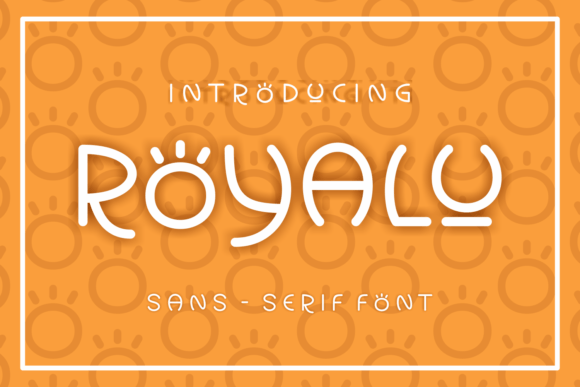
Introducing Royalu Font, a beacon of charm and elegance in the world of typography. This entrancing display font, crafted by the skilled hands of lelevien, is no ordinary typeface; it's a symphony of visual delight. Let your designs dance to the rhythm of Royalu's captivating characters, each stroke a testament to creativity and imagination.
With its bold and playful demeanor, Royalu Font is a breath of fresh air in the realm of conventional fonts. Its unyielding personality shines through in every letterform, beckoning you to explore new horizons of creativity. Dive into the depths of its meticulously crafted glyphs, and discover a treasure trove of stylistic alternatives and ligatures, empowering you to unleash your inner artist.
But Royalu's allure extends far beyond its aesthetic appeal. This versatile font is a master of adaptability, effortlessly conforming to a myriad of design projects. Whether you seek to craft captivating logos, enthralling posters, or visually stunning social media graphics, Royalu Font rises to the occasion with grace and finesse. Its unwavering legibility ensures that your message remains crystal clear, even in the most demanding environments.
If you're a seeker of distinction, a visionary yearning to leave an indelible mark on the world of design, then Royalu Font is your destined companion. Its distinctive charm will transform your creative endeavors into masterpieces, captivating the hearts and minds of your audience. Join the ranks of those who dare to embrace the extraordinary, and let Royalu Font orchestrate a symphony of visual enchantment.